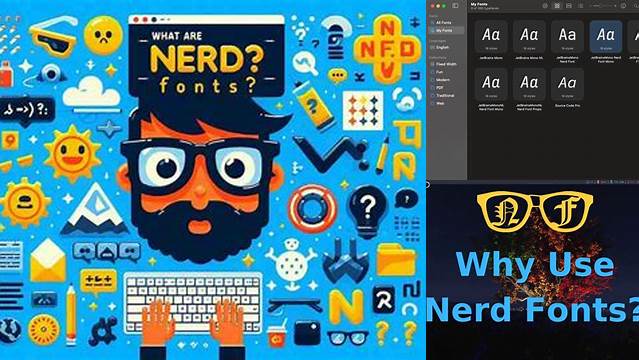
Nerd Fonts: The Ultimate Guide For Windows 11
Are you looking to supercharge your Windows 11 terminal and coding experience? Then you've come to the right place, guys! Nerd Fonts are the secret sauce to making your command line interface not only functional but also visually appealing. In this comprehensive guide, we'll dive deep into the world of Nerd Fonts, specifically how to get them up and running on your Windows 11 system. Get ready to transform your coding environment!
What are Nerd Fonts?
Before we jump into the installation process, let's quickly cover what Nerd Fonts actually are. In essence, Nerd Fonts are patched fonts that include a plethora of extra glyphs (icons) from popular icon sets like Font Awesome, Octicons, and Devicons. These icons can then be used in your terminal emulators, code editors, and other applications to add visual flair and information. Think of it as adding emojis, but for your coding tools! They enhance the overall look and feel, making it easier to distinguish between different elements and commands, as well as making your workspace more personalized and enjoyable. You might be thinking, “Why do I need all these icons?” Well, imagine you’re working with a Git repository and your terminal displays a little branch icon next to your branch name, or a file icon indicating the type of file you’re looking at. These small visual cues can significantly improve your workflow and make navigating your projects a breeze. Plus, let's be honest, a cool-looking terminal is just plain fun! The Nerd Fonts project takes existing popular fonts, like Fira Code, Hack, and JetBrains Mono, and adds these icons without compromising the original font's design and readability. This means you get the best of both worlds: a familiar and comfortable font with a massive boost in visual capabilities. So, if you're all about productivity and aesthetics, Nerd Fonts are definitely worth exploring. And trust me, once you start using them, you'll wonder how you ever lived without them!
Why Use Nerd Fonts on Windows 11?
So, why should you bother installing Nerd Fonts on your Windows 11 machine? Well, the benefits are numerous! First and foremost, they drastically improve the aesthetics of your terminal. Let's face it, the default command prompt can be a little… bland. Nerd Fonts breathe new life into your terminal, making it a more visually engaging and enjoyable space to work in. This is especially important if you spend a lot of time coding or working in the command line, as a visually appealing environment can actually boost your productivity and reduce eye strain. But it's not just about looks. Nerd Fonts also enhance functionality by allowing you to use those aforementioned icons in various terminal applications. This means you can use them with your shell prompt (like PowerShell or Bash), your text editor, or even your status bar. These icons can provide valuable information at a glance, such as the status of your Git repository, the programming language you're working in, or the current system load. Think of it as visual shortcuts that help you stay informed and efficient. For example, imagine you're using a custom prompt that displays a Git branch icon that changes color depending on whether there are uncommitted changes. This simple visual cue can save you a ton of time and prevent accidental commits to the wrong branch. Furthermore, Nerd Fonts are particularly useful if you're using powerline-based tools, such as oh-my-posh or Powerlevel10k. These tools rely heavily on special glyphs and icons to create visually rich and informative prompts, and Nerd Fonts are specifically designed to provide the necessary characters. Without Nerd Fonts, these tools would simply display boxes or question marks instead of the intended icons, rendering them effectively useless. And let's not forget about the customization aspect. Nerd Fonts offer a huge range of icons to choose from, allowing you to personalize your terminal and coding environment to your exact preferences. Whether you're a fan of Font Awesome's web-related icons, Devicons' programming language icons, or Octicons' general-purpose symbols, Nerd Fonts have you covered. This level of customization can make your workspace feel more like your own, which can lead to a more comfortable and productive experience. So, if you're looking to spice up your terminal, add functionality to your workflow, and personalize your coding environment, Nerd Fonts are definitely the way to go. They're a simple yet powerful tool that can make a big difference in your day-to-day coding life.
Even with the best instructions, sometimes things don't go exactly as planned. If you're encountering issues with Nerd Fonts on Windows 11, don't panic! Here are some common problems and how to troubleshoot them.
Icons Not Displaying Correctly
One of the most common issues is icons not displaying correctly, or showing up as boxes or question marks instead of the intended glyphs. This usually indicates that the terminal is not using the Nerd Font, or that there's a problem with the font rendering. The first thing to check is that you've correctly configured your terminal to use the Nerd Font. Go back to the terminal settings and double-check that the fontFace setting is set to the exact name of your Nerd Font. Make sure you haven't made any typos and that the capitalization is correct. If you're using Windows Terminal, you might also want to check the fontWeight setting. Some Nerd Fonts have different weights (like regular, bold, and light), and if the fontWeight doesn't match the font style, the icons might not display correctly. If you've verified that the terminal is using the correct font, the next thing to check is the font rendering settings. Some terminal emulators have options for different rendering engines, such as DirectWrite or GDI. Try switching between these options to see if it resolves the issue. In Windows Terminal, you can find the rendering settings in the "Rendering" section of the settings JSON file. If you're still having trouble, it's possible that there's a conflict with another font on your system. Try temporarily uninstalling other fonts that might be interfering with the Nerd Font. You can do this through the Fonts settings in Windows. Another potential issue is that the application you're using might not support Nerd Fonts. While most modern terminal emulators and text editors support Nerd Fonts, some older applications might not. In this case, you'll need to use a different application or find a workaround. Finally, it's always a good idea to restart your computer after installing new fonts. This will ensure that all applications recognize the new fonts and that there are no lingering issues. If you've tried all of these steps and you're still having problems, don't hesitate to seek help from the Nerd Fonts community. There are many online forums and communities where you can ask questions and get assistance from other users. So, don't give up! With a little troubleshooting, you'll have those icons displaying perfectly in no time.
Font Looks Blurry or Pixelated
Another issue you might encounter is the font looking blurry or pixelated, especially at certain sizes. This can be caused by a variety of factors, but it's usually related to font scaling or rendering. The first thing to try is adjusting the font size in your terminal settings. Nerd Fonts often look best at specific sizes, so experiment with different sizes until you find one that looks sharp and clear. If the font looks blurry at smaller sizes, try increasing the size. If it looks pixelated at larger sizes, try decreasing the size. You might also want to adjust the font rendering settings in your terminal. As mentioned earlier, some terminal emulators have options for different rendering engines, such as DirectWrite or GDI. Try switching between these options to see if it improves the font rendering. DirectWrite is generally the preferred rendering engine on Windows, as it offers better support for modern font technologies. However, GDI might work better in some cases, especially with older applications. If you're using Windows Terminal, you can find the rendering settings in the "Rendering" section of the settings JSON file. Another potential issue is font smoothing. Windows has a feature called ClearType that smooths the edges of fonts to make them look less pixelated. However, ClearType can sometimes cause fonts to look blurry, especially at smaller sizes. Try disabling ClearType to see if it resolves the issue. You can do this through the Windows Control Panel. Go to "Appearance and Personalization", then "Fonts", and then "Adjust ClearType text". Follow the on-screen instructions to disable ClearType. If disabling ClearType improves the font rendering, you can try adjusting the ClearType settings to find a configuration that works best for you. You can also try adjusting the display scaling settings in Windows. If your display scaling is set to a value other than 100%, it can cause fonts to look blurry or pixelated. Try setting the display scaling to 100% to see if it resolves the issue. You can find the display scaling settings in the Windows Settings app, under "System" and then "Display". Finally, it's possible that the font itself is not optimized for your display. Some fonts are designed to look best at specific resolutions or pixel densities. If you've tried all of the above steps and the font still looks blurry or pixelated, you might want to try a different Nerd Font. There are many different Nerd Fonts available, so you should be able to find one that looks great on your display. So, don't let blurry or pixelated fonts ruin your coding experience. With a little troubleshooting, you can get your Nerd Fonts looking sharp and clear!
There you have it, guys! A comprehensive guide to installing and using Nerd Fonts on Windows 11. By following these steps, you can transform your terminal from a dull, utilitarian interface into a visually appealing and informative coding environment. Nerd Fonts are a powerful tool for developers and anyone who spends a lot of time in the command line. They add a touch of personality to your workspace and make it easier to navigate and understand your projects. From the initial download to configuring your terminal, we've covered everything you need to get started. We've also addressed some common issues you might encounter and how to troubleshoot them. But the real beauty of Nerd Fonts lies in their customization options. With a vast array of icons and glyphs to choose from, you can tailor your terminal to perfectly match your workflow and preferences. Whether you're a fan of minimalist designs or prefer a more visually rich interface, Nerd Fonts have something for everyone. So, take some time to explore the different font families and icon sets, and find the combination that works best for you. And remember, the world of Nerd Fonts is constantly evolving, with new fonts and icons being added all the time. Stay tuned to the Nerd Fonts project for the latest updates and features. By embracing Nerd Fonts, you're not just improving the aesthetics of your terminal – you're also enhancing your productivity and coding experience. Those small visual cues and icons can make a big difference in your ability to quickly understand and navigate your projects. So, go ahead and give it a try. You might be surprised at how much you enjoy coding in a visually appealing and informative environment. And if you encounter any issues along the way, don't hesitate to refer back to this guide or seek help from the Nerd Fonts community. Happy coding, guys!